20 Best Independence Day Fonts for Patriotic T-Shirts & Posters (2026)
Independence Day designs have a very specific kind of energy. They need to feel bold, festive, a little nostalgic, and easy to understand right away.
That’s especially true when you’re making July 4th posters, T-shirt graphics, party invitations, mugs, stickers, sale banners, or social media posts. People usually see these designs quickly — scrolling on a phone, walking past a flyer, or browsing a shop mockup — so the font has to do a lot of work fast.
A good Independence Day font usually brings in familiar patriotic details like stars, stripes, flag-inspired fills, fireworks, red-white-and-blue colors, vintage lettering, or rugged military-style textures. When those details are used well, the design feels festive before anyone even reads the full message.
Below are 20 Independence Day fonts that fit different types of July 4th projects, from bold posters and print-on-demand shirts to cute craft designs and social graphics.
20 Independence Day Fonts for Posters, T-Shirts, and Social Media
1. Independence Day Font by Doodle Alphabet
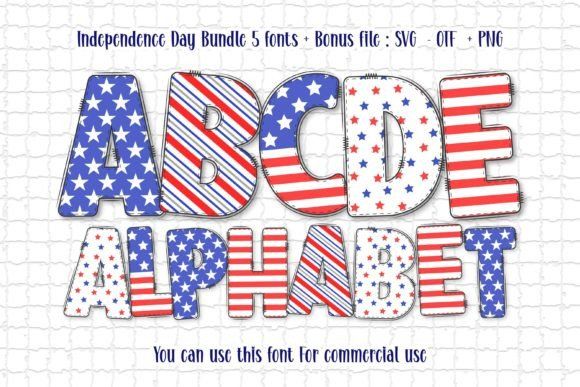
Independence Day Font by Doodle Alphabet has that classic American flag look, with bold letters filled with stars, stripes, and strong patriotic color.
It’s the kind of font that works best when you let it be the main design element. I’d use it for large phrases on posters, party signs, shirt graphics, banners, or printable decorations. It already has plenty of visual detail, so it doesn’t need much extra around it.
This one feels especially useful for classic July 4th phrases like “Happy 4th of July,” “Celebrate Freedom,” “USA Pride,” or “Land of the Free.”
2. Independence Day Font by Holly Design
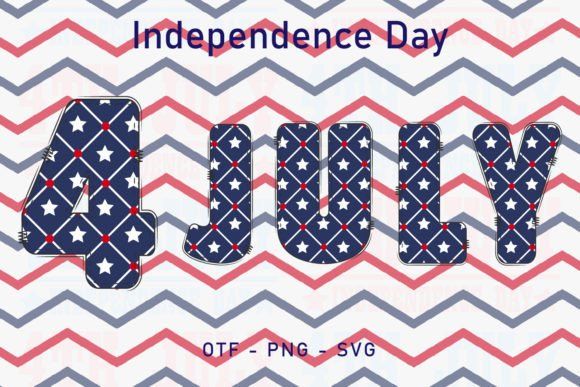
Independence Day Font by Holly Design has a bold block-style look that feels clean, strong, and easy to read.
This is a good choice when you want the design to feel festive without becoming too busy. The letters have enough weight to hold up well on T-shirts, tote bags, invitations, and event graphics. On apparel especially, that strong shape matters because thin or overly detailed fonts can disappear once they’re printed on fabric.
It’s a practical patriotic font for simple layouts where the message needs to stand out clearly.
3. Sparkle Stripes Font
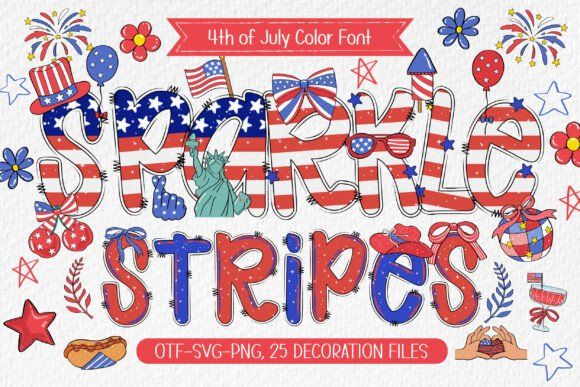
Sparkle Stripes Font feels cheerful, bright, and a little preppy. It has a fun red-white-and-blue style with decorative details that make it feel very holiday-ready.
This font leans more playful than serious, so it’s a nice fit for family-friendly designs, kids’ party graphics, cute stickers, scrapbook pages, and sublimation projects. I’d also use it for Pinterest-style graphics because it has enough personality to catch attention in a busy feed.
It’s not the font I’d pick for a rugged military-style design, but for cheerful July 4th projects, it fits beautifully.
4. Independence Day Font by Itme Digitalart
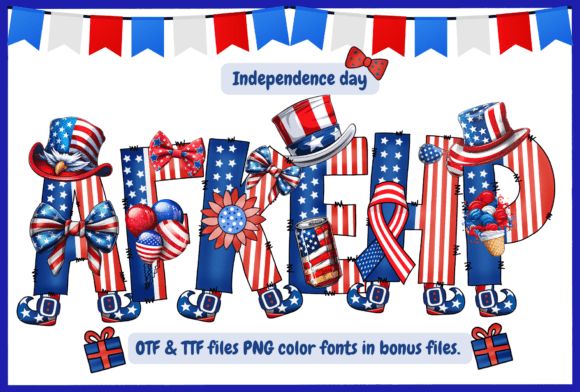
Independence Day Font by Itme_digitalart has a playful patriotic look with stars, stripes, hats, bows, and other festive little details.
This one feels especially good for designs aimed at families, kids, school activities, or backyard parties. It has that decorated, crafty look that works nicely on invitations, classroom printables, children’s shirts, and party signs.
Because the letters include quite a bit of detail, I’d keep the wording short. A few bold words will look better than a long sentence.
5. Sugar Daisies Font
Sugar Daisies Font brings a softer twist to patriotic lettering. Instead of going heavy on rugged stars and flag textures, it mixes Independence Day colors with cute daisy details.
That makes it a lovely option for boutique-style holiday graphics, feminine T-shirt designs, handmade product labels, invitations, and small shop promotions. It still feels patriotic, but in a sweeter and more casual way.
This kind of font works well when you want a July 4th design that feels cheerful rather than loud.
6. Blossom Star Font
Blossom Star Font combines red, white, and blue colors with floral patterns and star details. It has a decorative style, but it doesn’t feel as heavy as some traditional flag fonts.
I like this kind of font for designs that need a festive look with a softer personality. The floral accents help it stand out, while the star elements keep it clearly connected to the Independence Day theme.